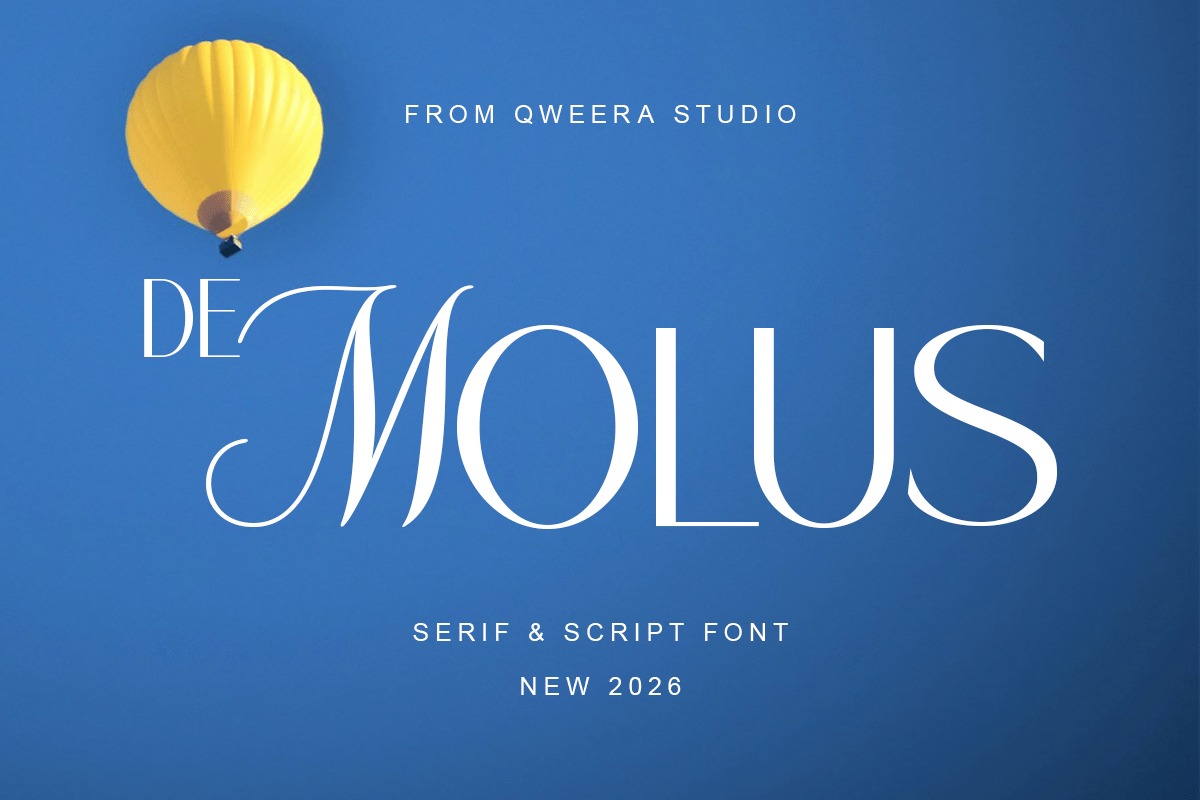
Demolus – Modern Elegant Font
Demolus – Modern Elegant Font is a professionally designed typeface that delivers clarity, structure, and consistent performance across various design applications. Demolus is a serif script duo typeface designed to bring airy elegance, modern luxury, and stylish personality into creative projects. Featuring refined serif structure, graceful script movement, beautiful ligatures, and smooth alternates, this font creates a polished visual presence with a fresh premium feel.
Perfect for lifestyle branding, travel logos, boutique packaging, fashion campaigns, product labels, wedding invitations, editorial headlines, social media graphics, and premium stationery.
Demolus blends elegant serif sophistication with expressive script charm, making it an excellent choice for designers seeking a modern font with light, stylish, and memorable branding appeal.
Features
Uppercase & lowercase
Regular & Italic
Alternates & ligatures
Multilingual support
Professional kerning